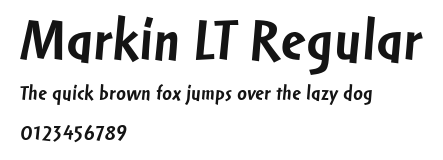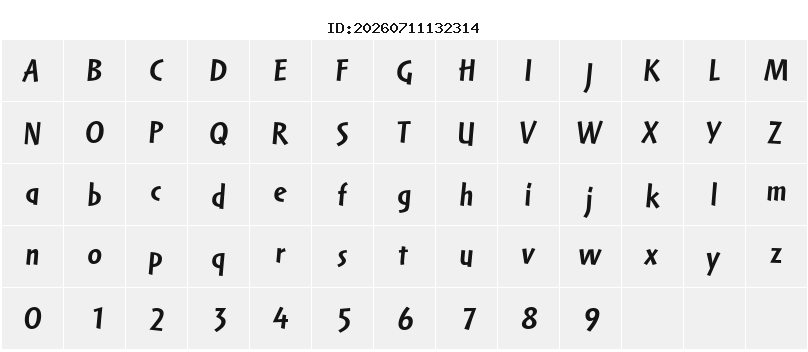
• Font Name: Markin LT Regular
• Full Font Name: Markin LT Bold Italic
About Markin LT Regular.ttf
Markin LT Regular.ttf is a modern, elegant sans-serif font designed for ultimate readability and visual harmony. Perfect for branding, headlines, web design, and print materials.